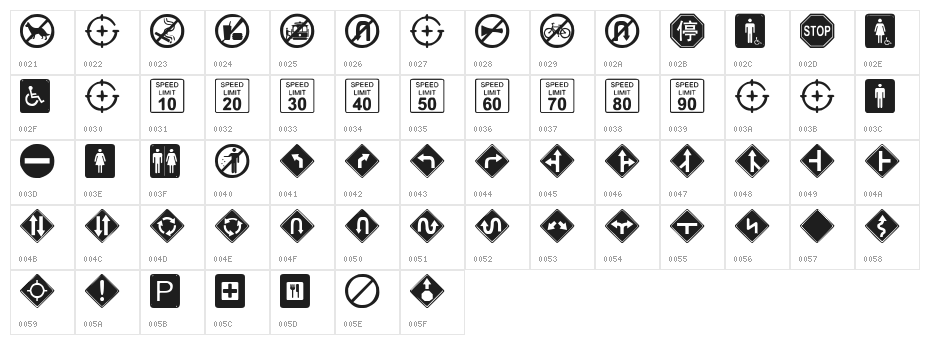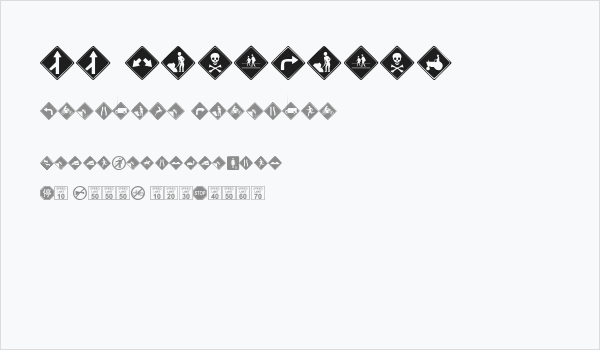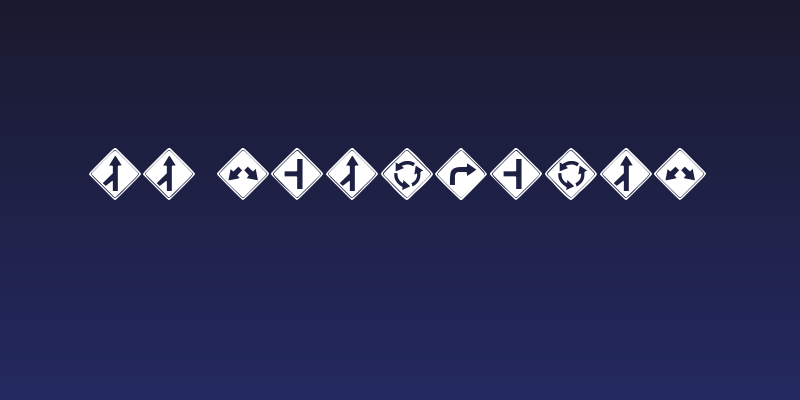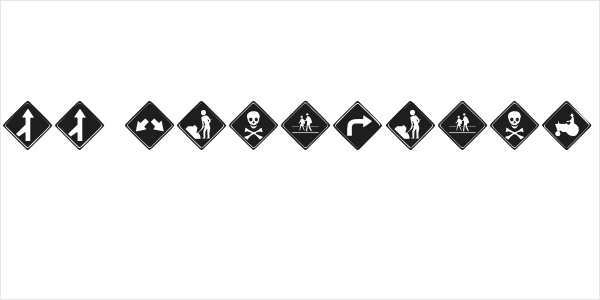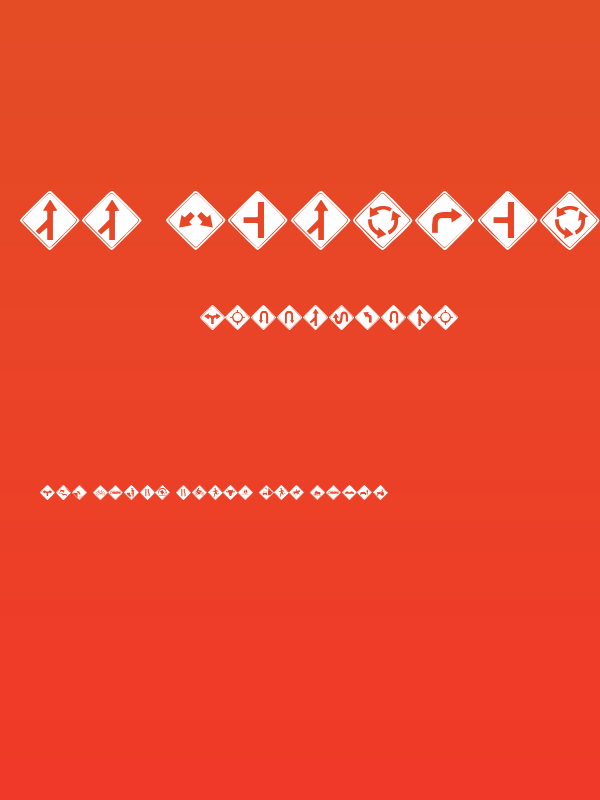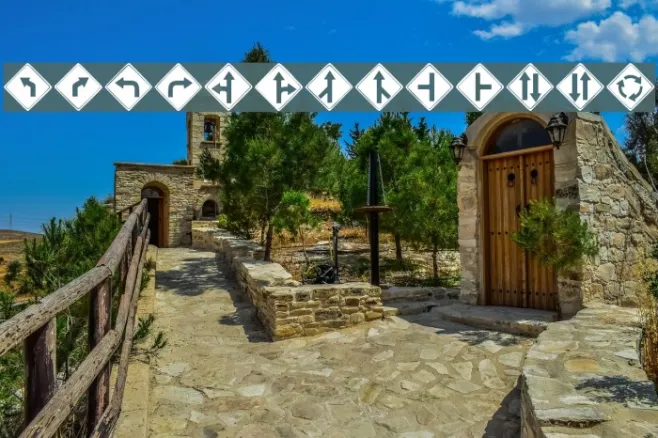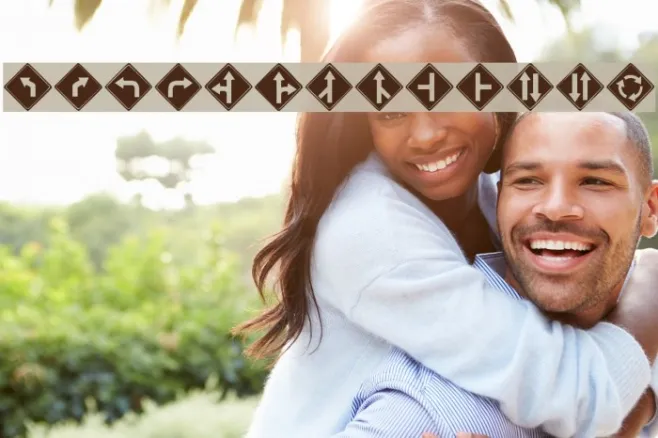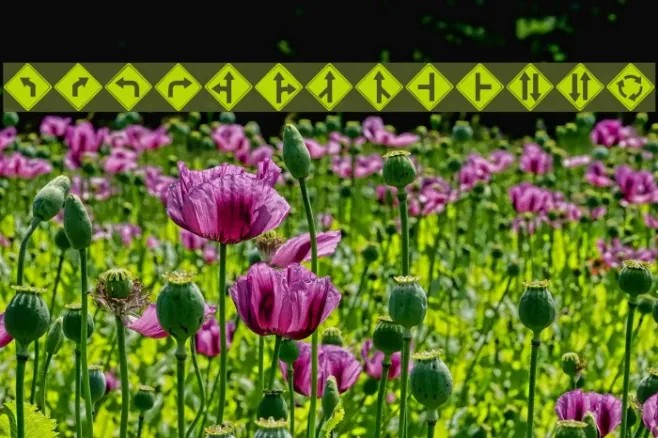
GG SignDings Font
GG SignDings Description
A pictogram-based dingbat set featuring various road and traffic signs, including directional arrows, speed limits, warnings, and vehicle or pedestrian symbols. The icons are bold, geometric, and highly legible, designed in solid black with white negative space for clarity.
| Overall Style | Modern, Functional, Pictographic |
| Use Case | Icons, Signage, Infographics, Wayfinding, Educational graphics |
| Proposed Projects | Infographics, educational materials, transport apps, signage mockups, instructional guides. |